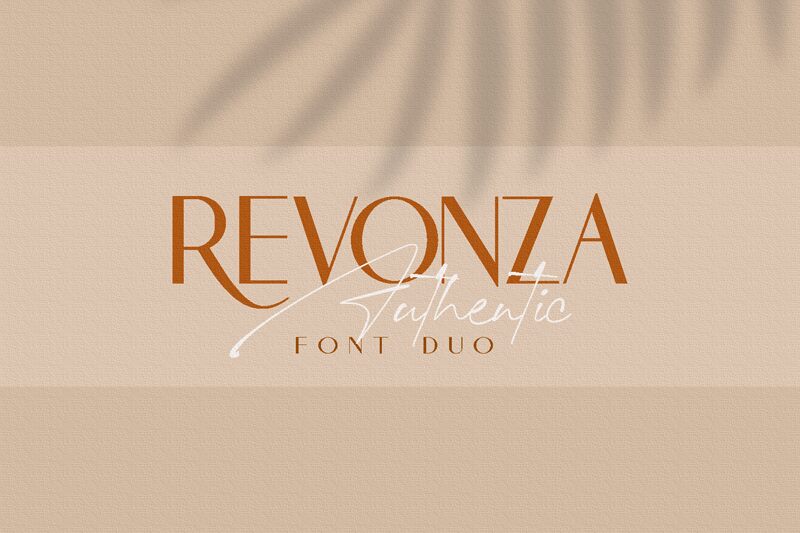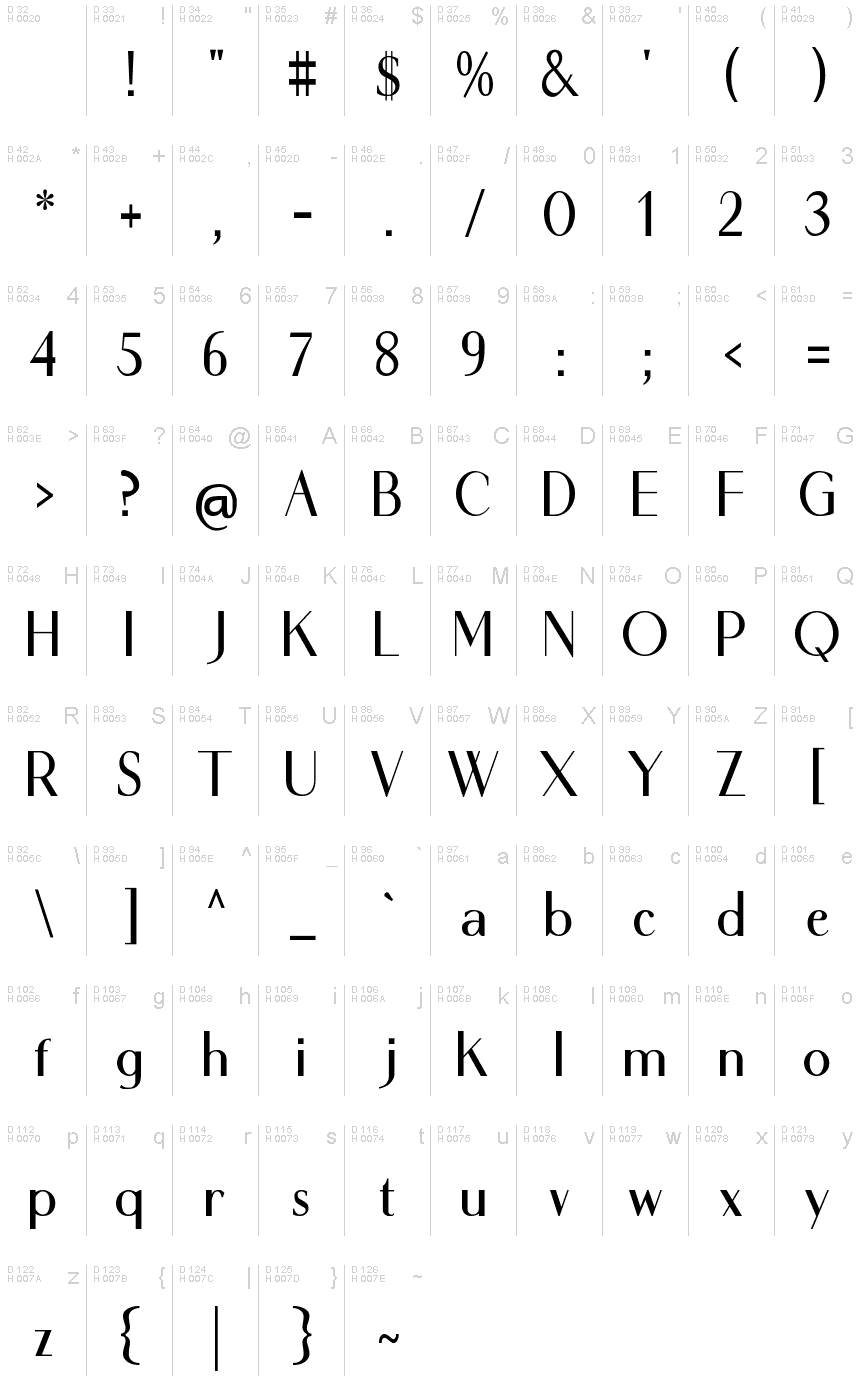
REVONZA Regular
REVONZA font is a stunning sans serif font designed by xdCreative.
Revonza Authentic is a spectacular duo font (sans serif and script). Incredibly powerful and beautiful, this font fits a wide pool of designs, elevating them to the highest levels. Add this font to your favorite creative ideas and notice how it makes them come alive!
REVONZA includes a complete characters ( Uppercase, lowercase, numeral, punctuation and alternates).
REVONZA Regular Sans - high contrast sans font containing uppercase, lowercase characters, numerals, punctuation and alternates. Creates a perfect pairing contrast with REVONZA Script fonts
REVONZA Sans Italic - high contrast sans font containing uppercase, lowercase characters, numerals, punctuation and alternates.
REVONZA Script - An elegant script font Contains upper & lowercase characters, numerals and a large range of punctuation